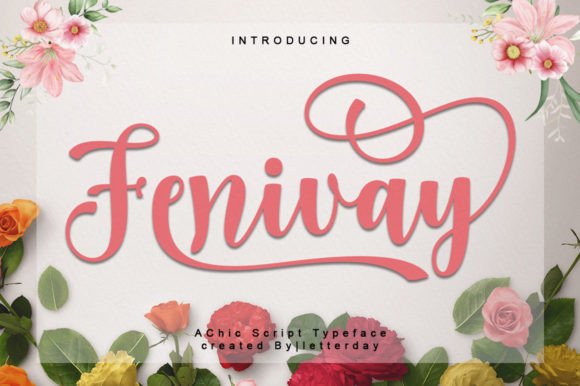
Journey into the realm of modern elegance with Fenivay Script, a captivating calligraphy font that weaves charm into every design. Created by the talented hands at Letterday, this font family epitomizes grace and sophistication, adding a touch of luxury to your creative endeavors.
Indulge in the intricate beauty of Fenivay's swashes, which dance across the page like delicate brushstrokes. With its casual yet refined style, Fenivay effortlessly elevates logos, product packaging, wedding invitations, and branding, leaving an unforgettable impression.
Unleash your creativity with Fenivay's versatility. Its enchanting curves and flowing lines lend themselves to a myriad of purposes. Craft eye-catching headlines that command attention, design signage that captivates passersby, create labels that exude elegance, and add a personal touch to signatures and book covers.
Fenivay's allure extends to posters and quotes, transforming ordinary words into works of art. Its PUA encoding grants you effortless access to a treasure trove of glyphs and ligatures, empowering you to add intricate details and flourishes that make your designs truly shine.
Embrace the timeless charm of Fenivay Script, a font that embodies the essence of modern calligraphy. Let your imagination soar as you craft designs that captivate and inspire, leaving an indelible mark on your audience. Purchase Fenivay today and unlock a world of creative possibilities.